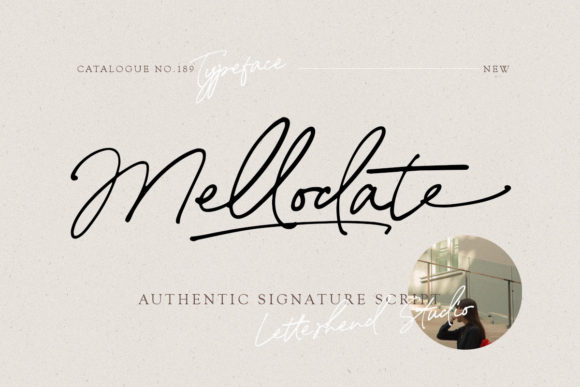
Mellodate: A Cursive Font That Adds Personality to Your Designs
If you're looking for a font that feels personal, elegant, and full of character, Mellodate might be exactly what you need. This beautiful cursive font has a dainty, handwritten look that brings warmth and charm to any project. Whether you're designing wedding invitations, creating custom cards, or adding a special touch to your branding, Mellodate can help make your message stand out in a unique way.
What Is Mellodate?
Mellodate is a decorative, cursive typeface that mimics the look of handwriting. It's designed to feel soft, flowing, and expressive, which makes it perfect for projects where you want to convey emotion or personality. Unlike more rigid or formal fonts, Mellodate has a gentle, organic feel that can make text feel more like a personal note than a printed message.
The font’s curves and flourishes give it a romantic and artistic quality. It’s not too ornate, so it remains readable while still standing out from standard sans-serif or serif fonts. This balance between style and clarity makes Mellodate ideal for a wide range of uses.
Where Can You Use Mellodate?
Mellodate is incredibly versatile and can be used in various creative and professional settings. Here are some common places where people use this font:
- Wedding Invitations: Mellodate adds a romantic and personal touch to wedding stationery. Its flowing script feels like a handwritten message, making guests feel like they’re receiving something special.
- Personalized Cards: From birthday cards to thank-you notes, Mellodate gives your messages a warm, heartfelt appearance. It’s especially popular for handmade or custom cards.
- Branding and Logos: Some small businesses or creatives use Mellodate in logos or branding materials to create a unique, memorable identity. It works well for boutique shops, art studios, or lifestyle brands.
- Digital Content: Bloggers and content creators often use Mellodate for headlines, quotes, or call-to-action buttons on websites. It helps draw attention without being overwhelming.
- Print Projects: Business cards, posters, and packaging can all benefit from Mellodate’s elegant look. It adds visual interest without sacrificing readability.
Why Would Someone Choose Mellodate?
There are several reasons why Mellodate is a popular choice among designers and creators. Let’s explore a few scenarios where it shines:
For Wedding Planners and Couples
Wedding planners and couples often need to create invitations that feel special. Mellodate offers a handcrafted look that can make even the simplest invitation feel like a treasured keepsake. The font’s delicate strokes and graceful curves are perfect for expressing love and celebration.
Many couples also use Mellodate for other wedding-related items, such as place cards, programs, or thank-you notes. It helps maintain a consistent aesthetic throughout their event.
For Small Business Owners
Small business owners looking to build a brand with personality can use Mellodate in their logos, website headers, or marketing materials. It adds a sense of approachability and creativity that can help attract customers who appreciate unique designs.
For example, a boutique flower shop might use Mellodate in its logo to evoke a sense of elegance and natural beauty. Similarly, a local bakery could use the font on its packaging to give a more personalized feel to its products.
For Bloggers and Content Creators
Bloggers and content creators often use Mellodate to make their posts more visually engaging. It can be used for headings, quotes, or call-out sections to add a touch of flair without distracting from the content.
Some creators also use Mellodate in social media posts or email newsletters to create a more personal connection with their audience. The font’s friendly and inviting style can help build trust and familiarity.
Things to Consider Before Using Mellodate
While Mellodate is a great font, it may not be suitable for every project. Here are a few things to keep in mind before using it:
- Readability: While Mellodate is mostly legible, it may not be the best choice for long blocks of text. It works best for short phrases, headings, or accents within larger text.
- Color Contrast: Because of its light and flowing design, Mellodate may require careful pairing with darker or bolder colors to ensure it stands out clearly.
- Font Pairing: To avoid clutter, pair Mellodate with a simpler, complementary font for body text. This ensures your design remains clean and easy to read.
Mellodate is more than just a font—it's a tool for expression. Whether you're designing for a special occasion, building a brand, or simply adding a personal touch to your work, Mellodate can help bring your ideas to life in a way that feels both elegant and authentic.